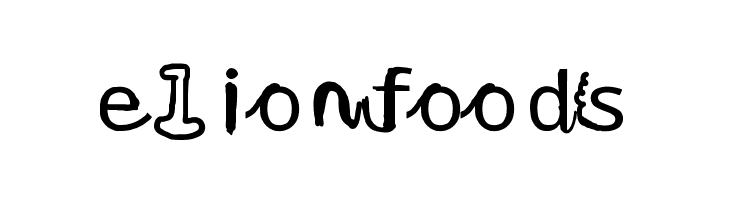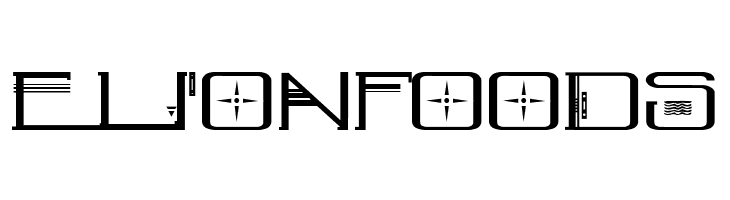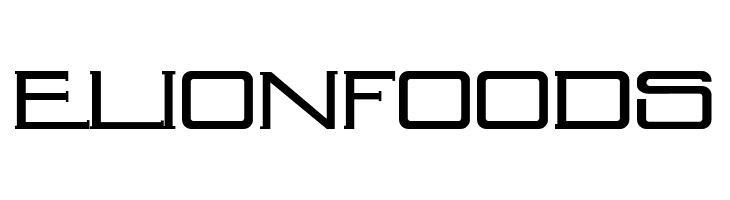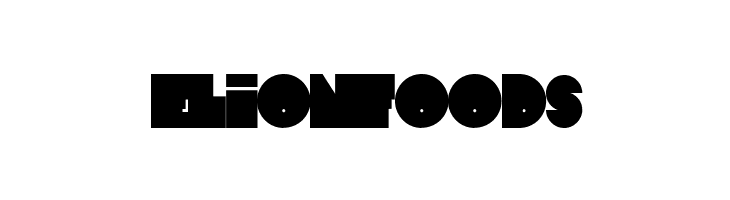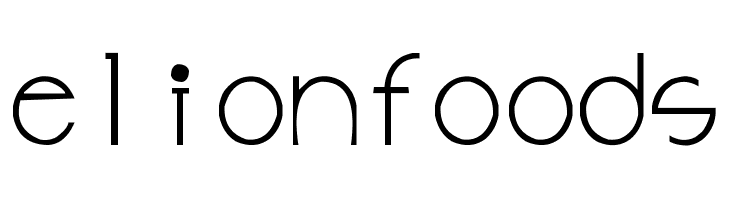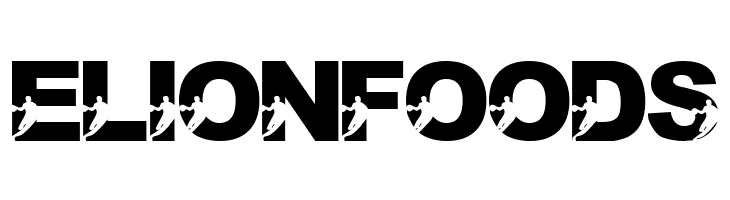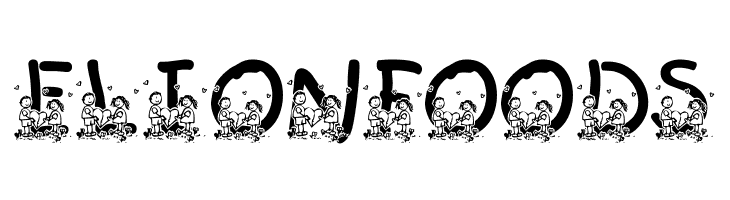
A whimsical, hand-drawn font with playful decorative elements.
An ornate, decorative font with intricate geometric details and a modern flair.
A geometric, futuristic font with sharp angles and a structured design.
A bold, geometric font with angular shapes and a modern aesthetic.
A playful, handwritten script with whimsical heart motifs and dynamic strokes.
A modern, geometric font with circular motifs and dynamic contrast.
A decorative, holiday-themed font with script letters inside ornate ornaments.
A bold, basketball-themed font with integrated player silhouettes.
A decorative font with floral motifs integrated into each letter, perfect for artistic projects.
A playful, decorative font with whimsical, hand-drawn elements.